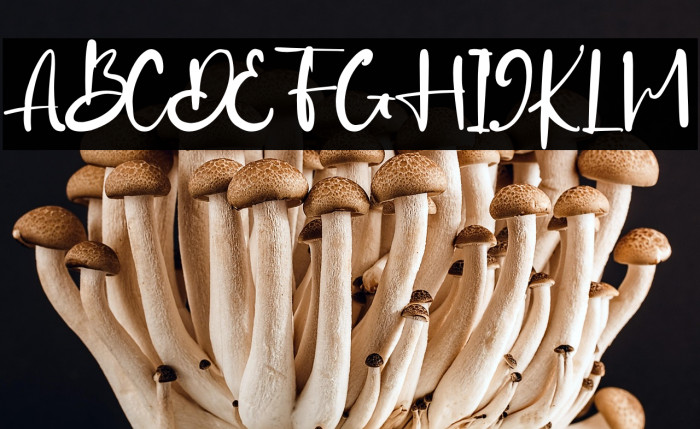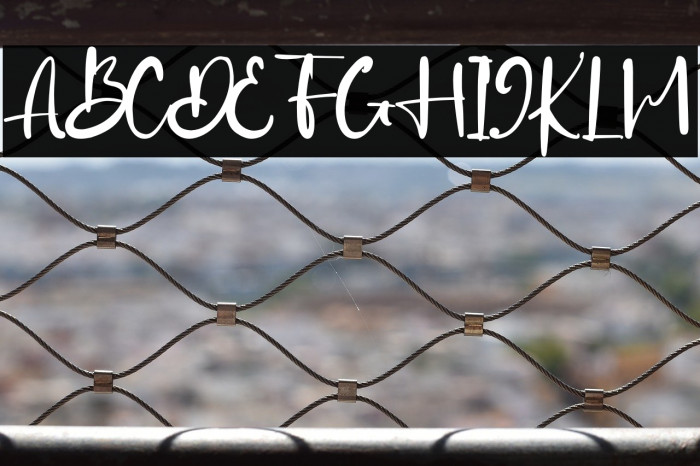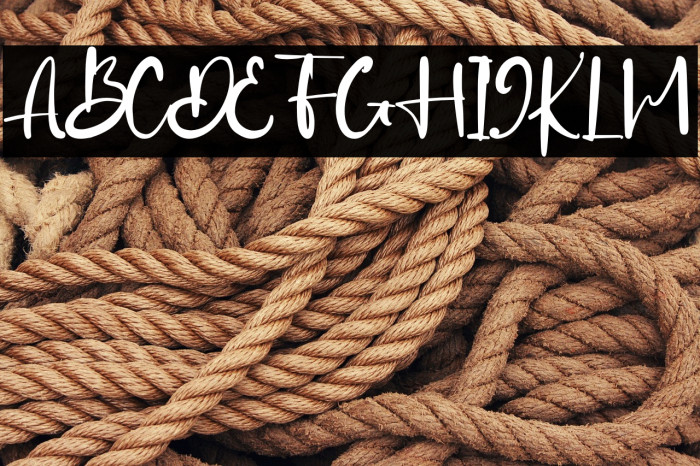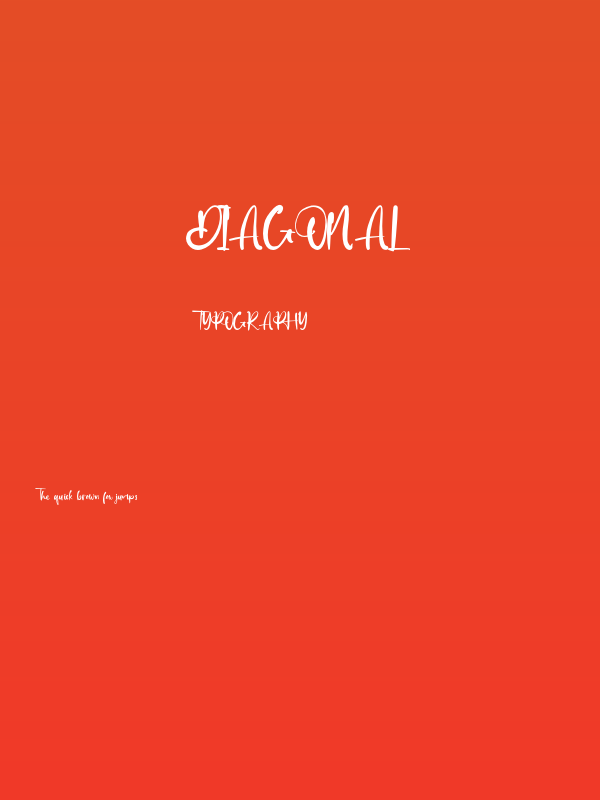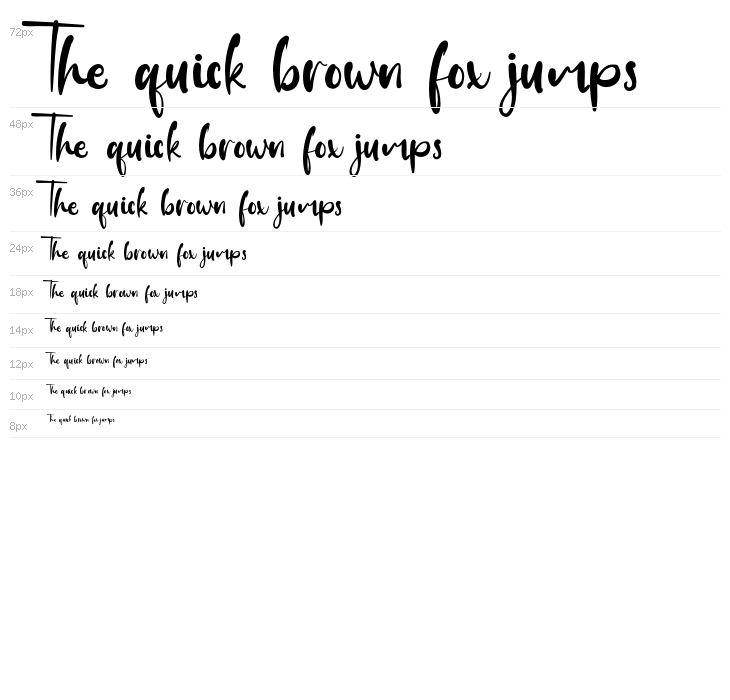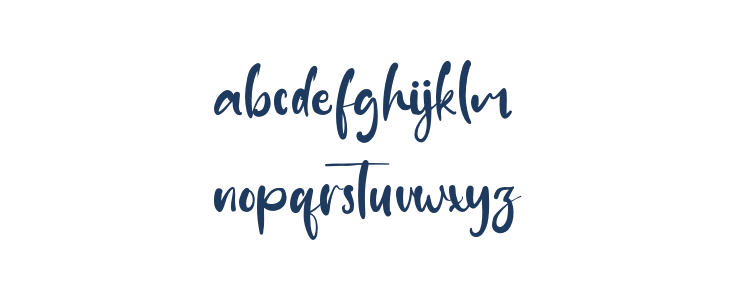
Diagonal Font
Diagonal Description
This font features a playful and energetic script style with a hand-drawn appearance. The letters are characterized by their fluid, cursive strokes and varying thickness, giving them a dynamic and lively feel. The uppercase letters are bold and expressive, while the lowercase letters maintain a consistent flow, enhancing readability. The numerals and special characters complement the overall style with similar curvaceous and artistic forms. This font is ideal for projects that require a personal and creative touch, such as invitations, greeting cards, or branding materials.
| Use Case | Logos, Headlines, Creative projects |
| Proposed Projects | Ideal for invitations, greeting cards, branding, and creative projects. |